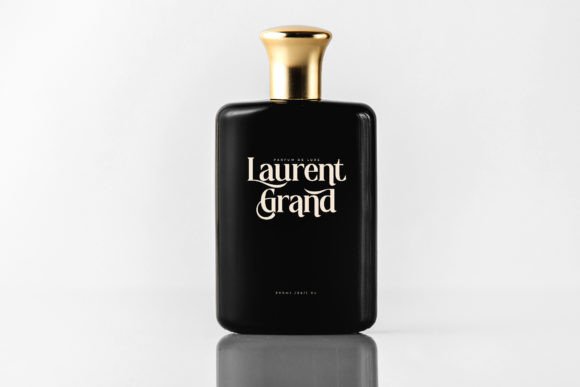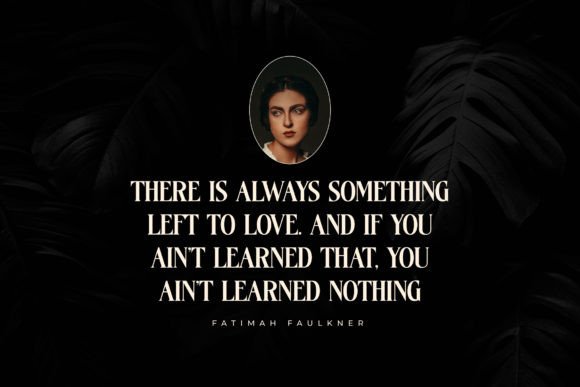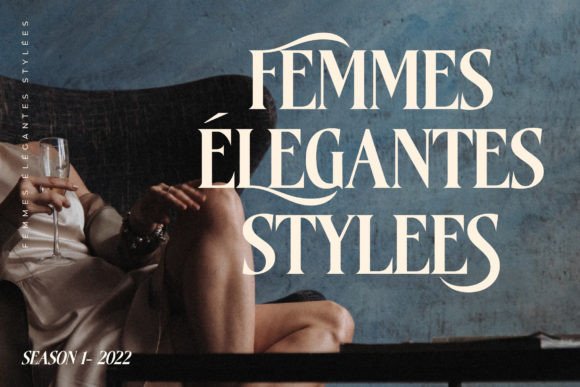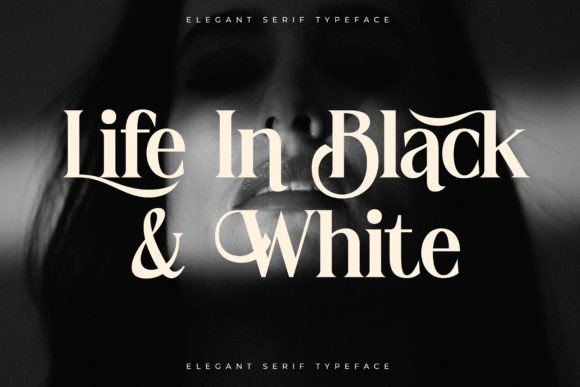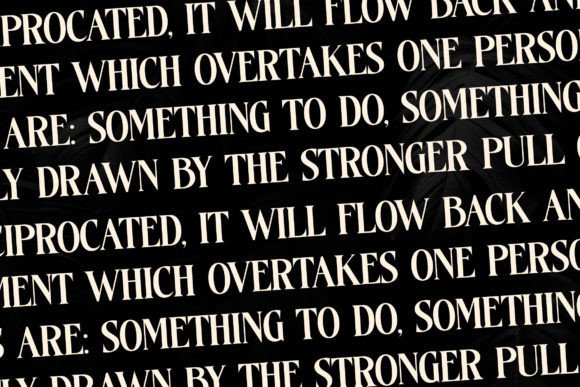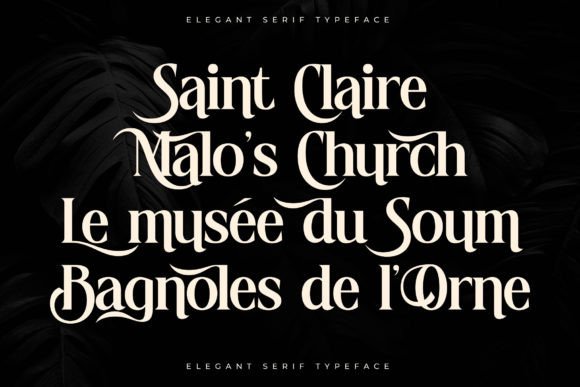
Introduction to Fantasy Magist Font
Fantasy Magist is a modern and stylish serif font.
Fall in love with its incredibly versatile style and use it to create gorgeous wedding invitations, beautiful stationary art, eye-catching social media posts, and much more This font is PUA encoded which means you can access all glyphs and ligatures with ease.